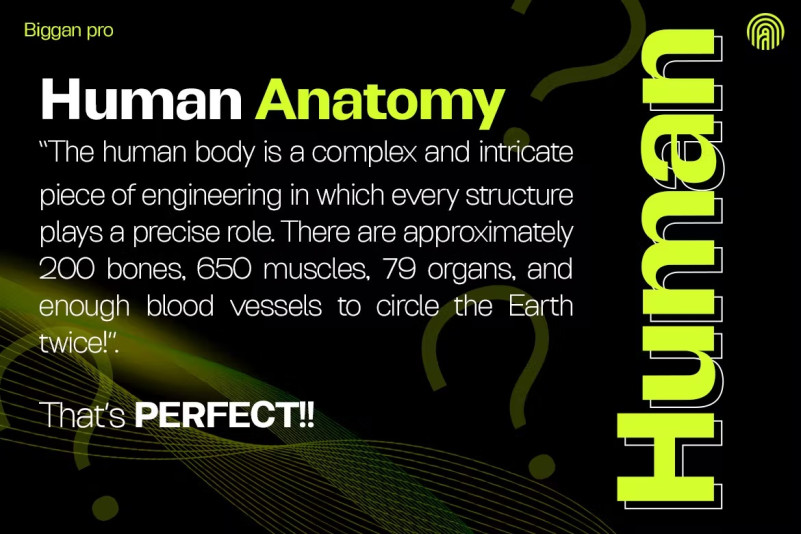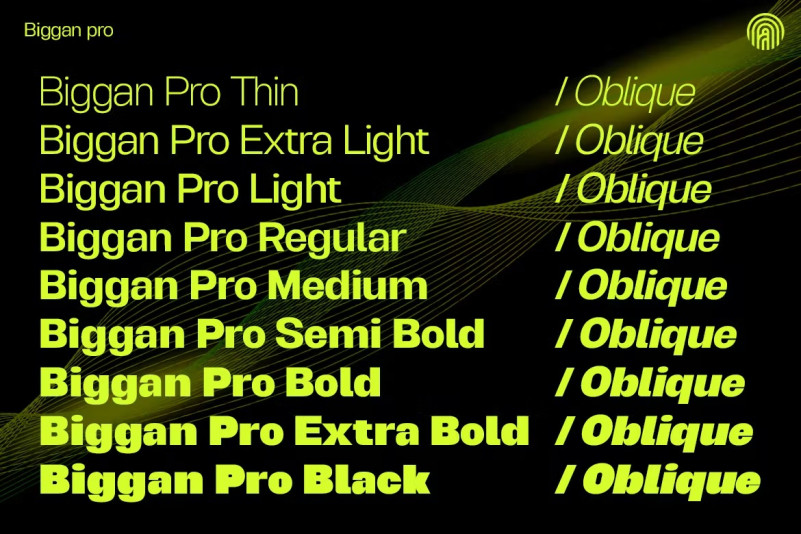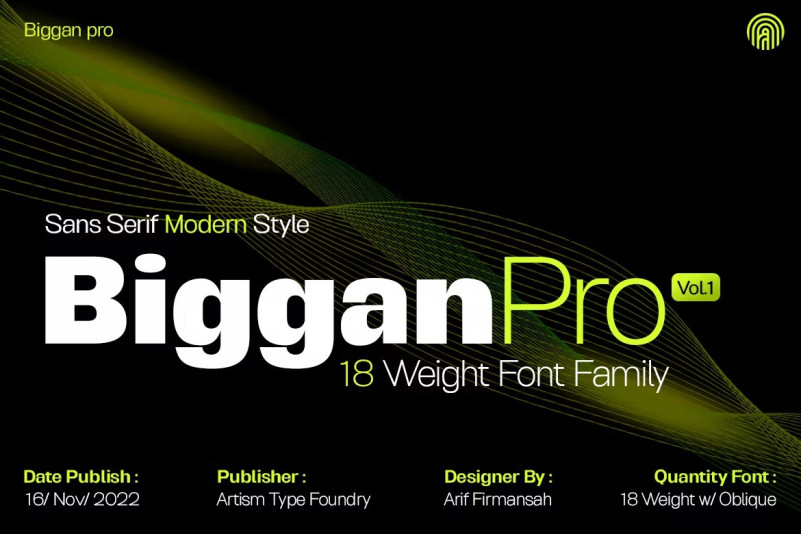
Biggan Pro Font
Biggan Pro Sans Serif Font Family, modern style sans serif typeface, this font is the perfect way to add style and flair to your designs! The unique, sophisticated shapes and amazing mix of shapes in this font will automatically add a touch of class and sophistication. ideal for use in greeting cards, posters, product packaging, or just to add a little flair to your designs. Its simplicity will make it easy to read and you can use it anywhere you like. Grab your copy now and start making the most of it today!